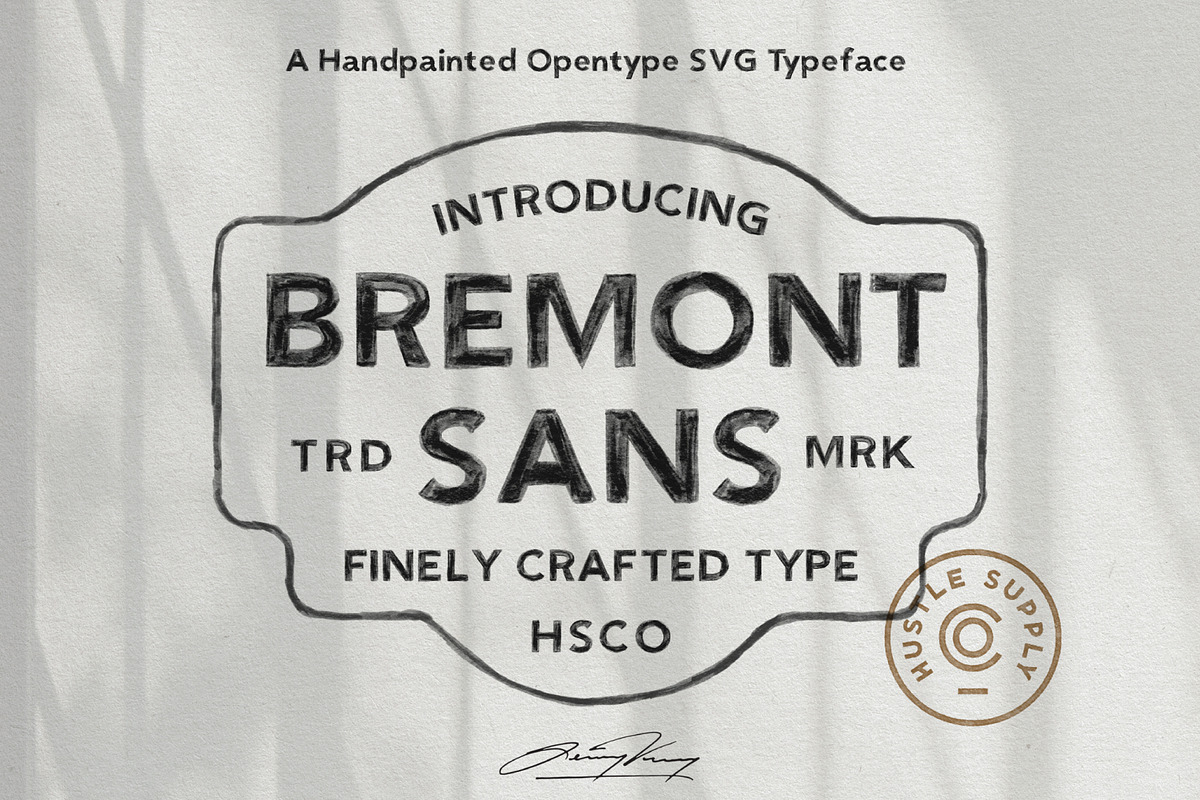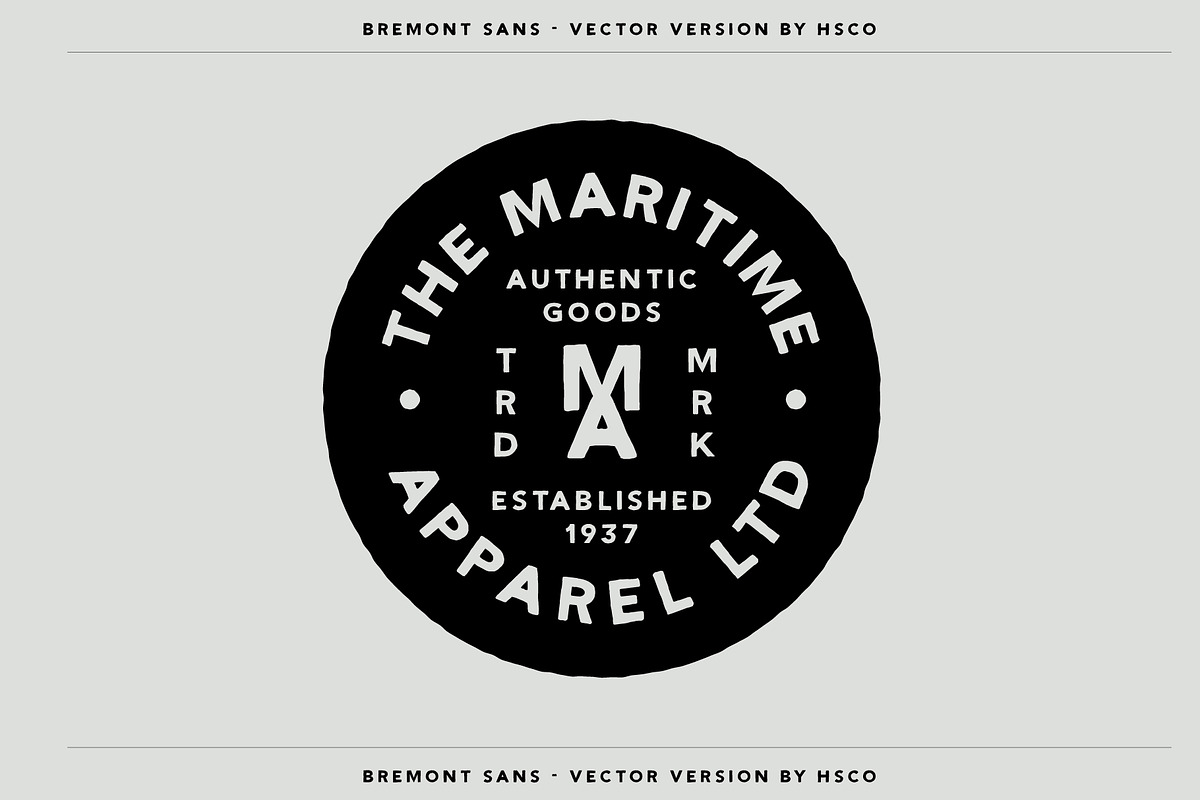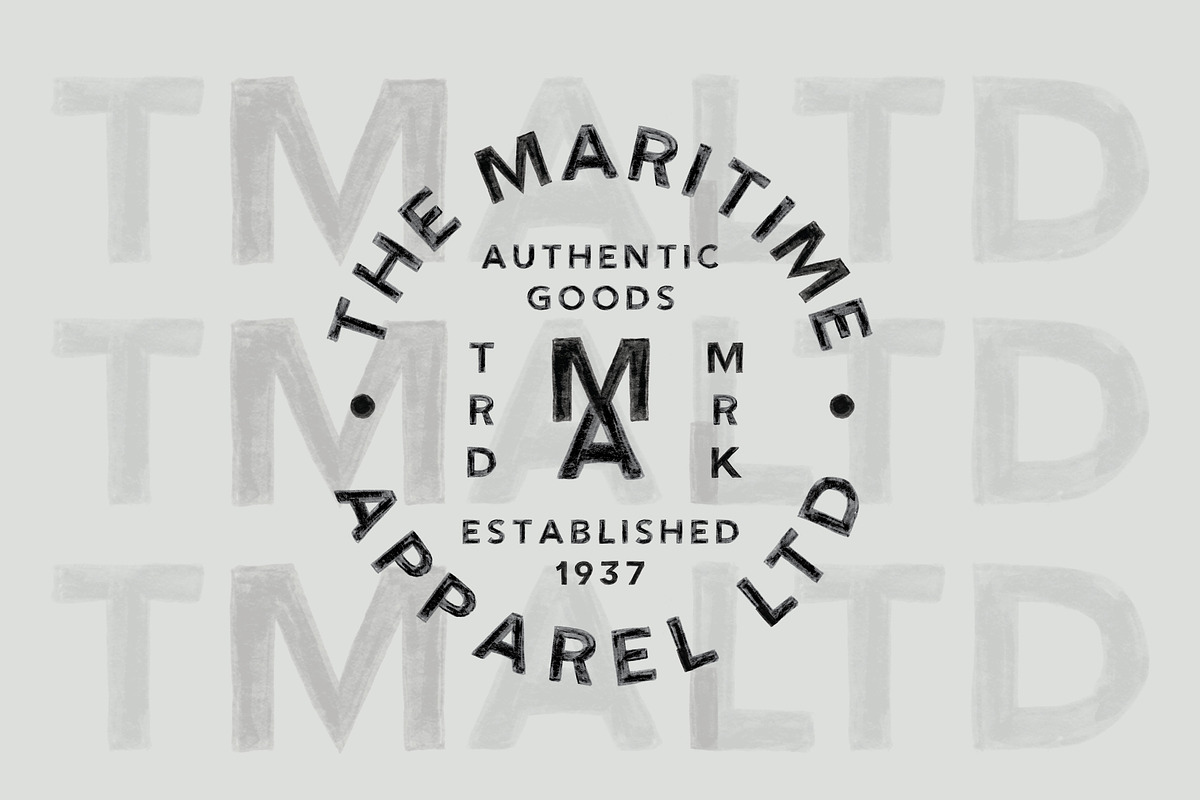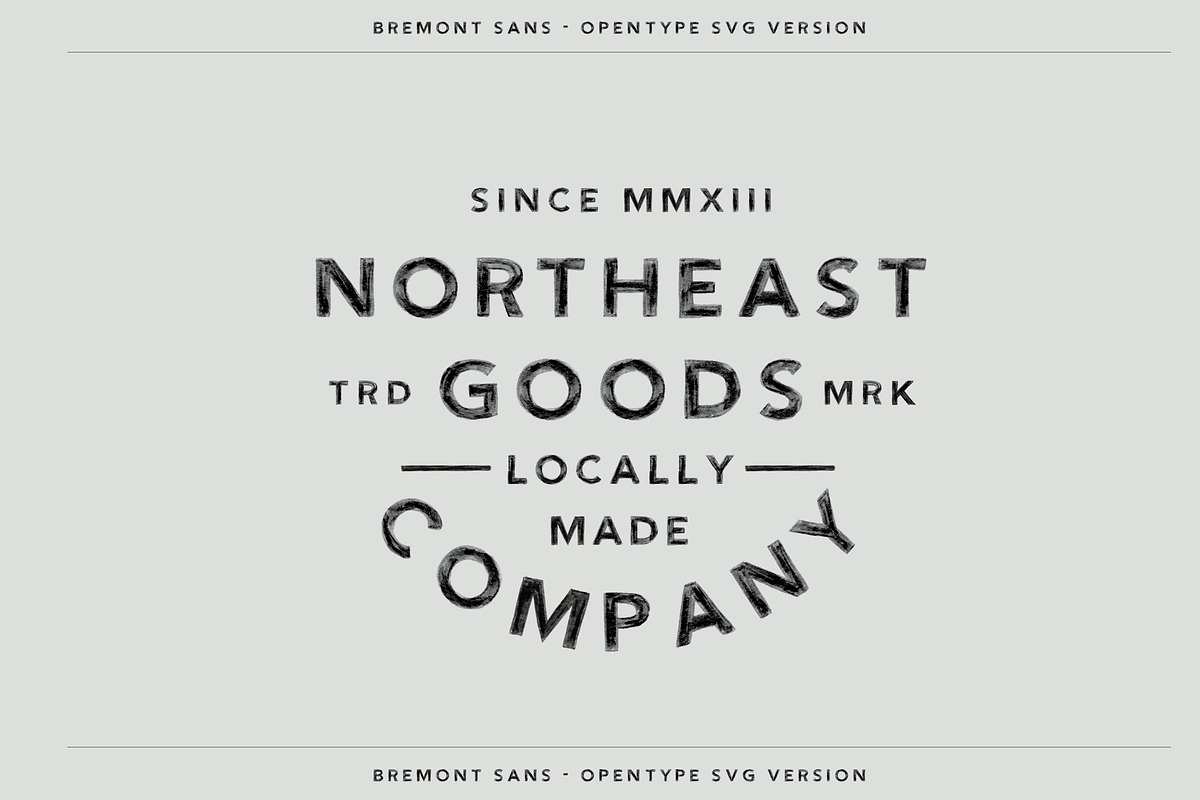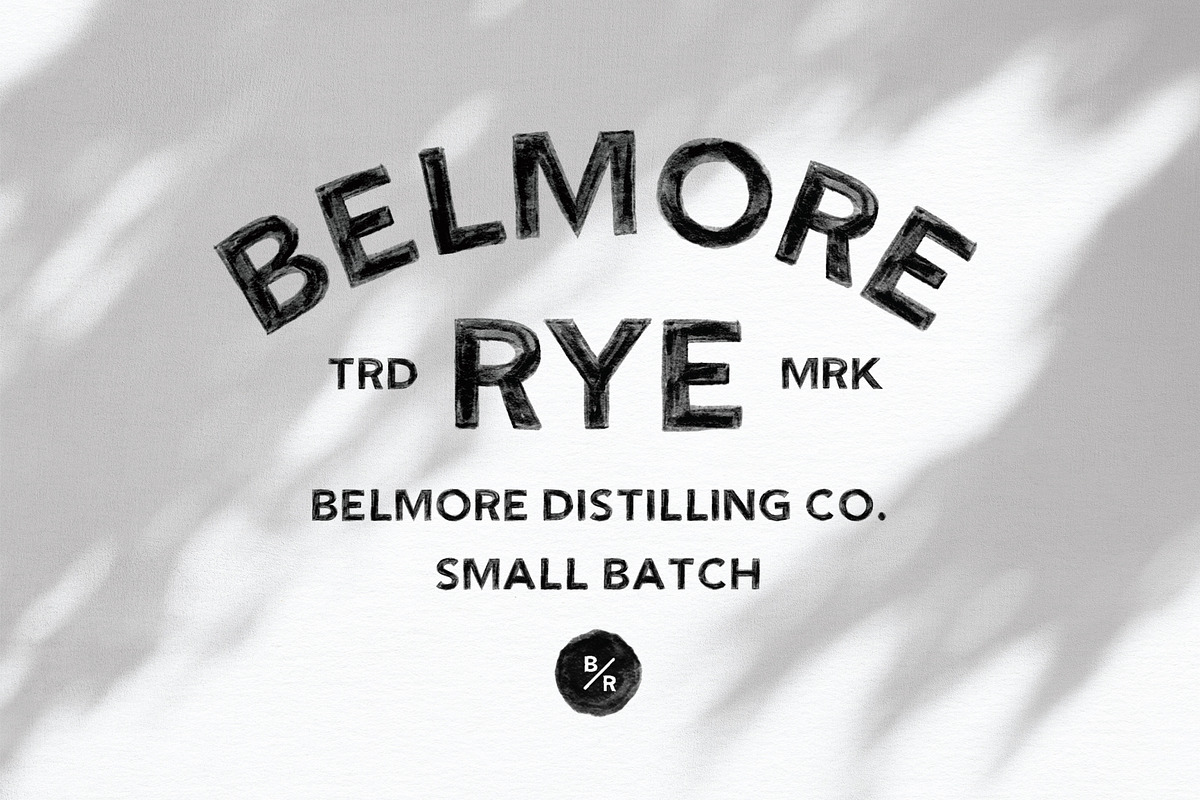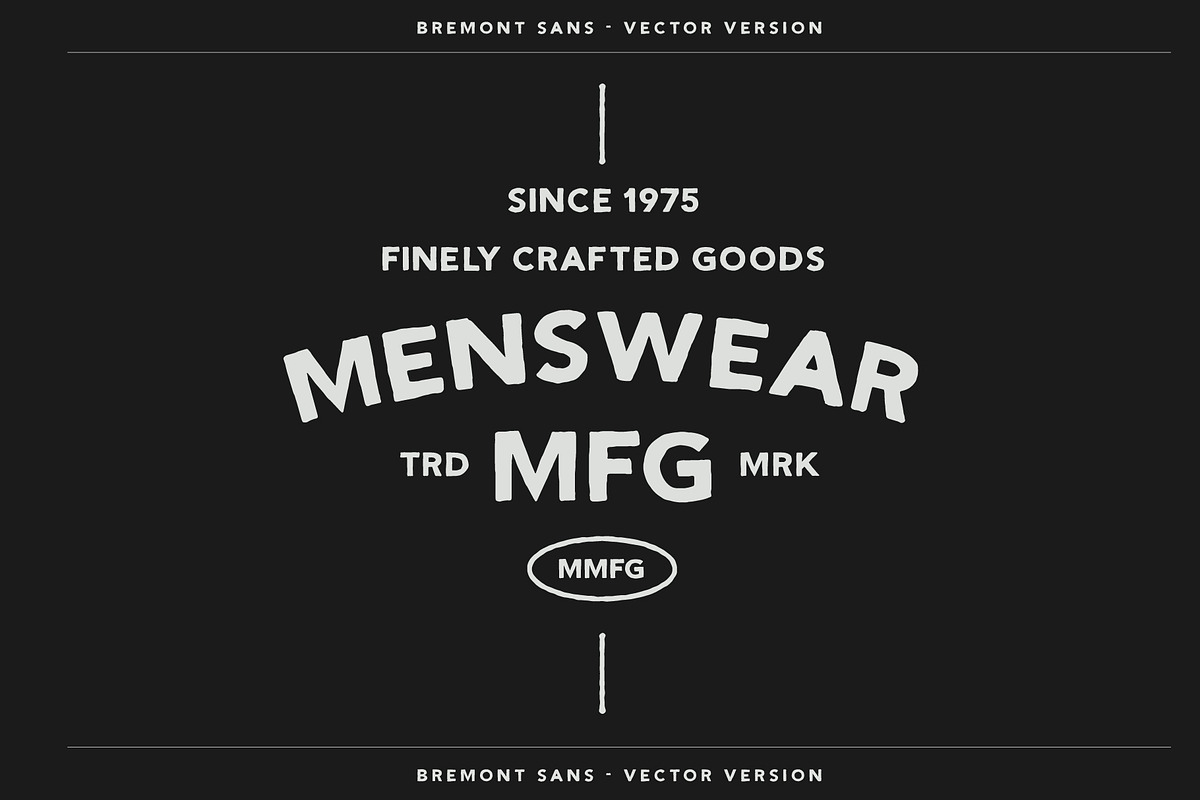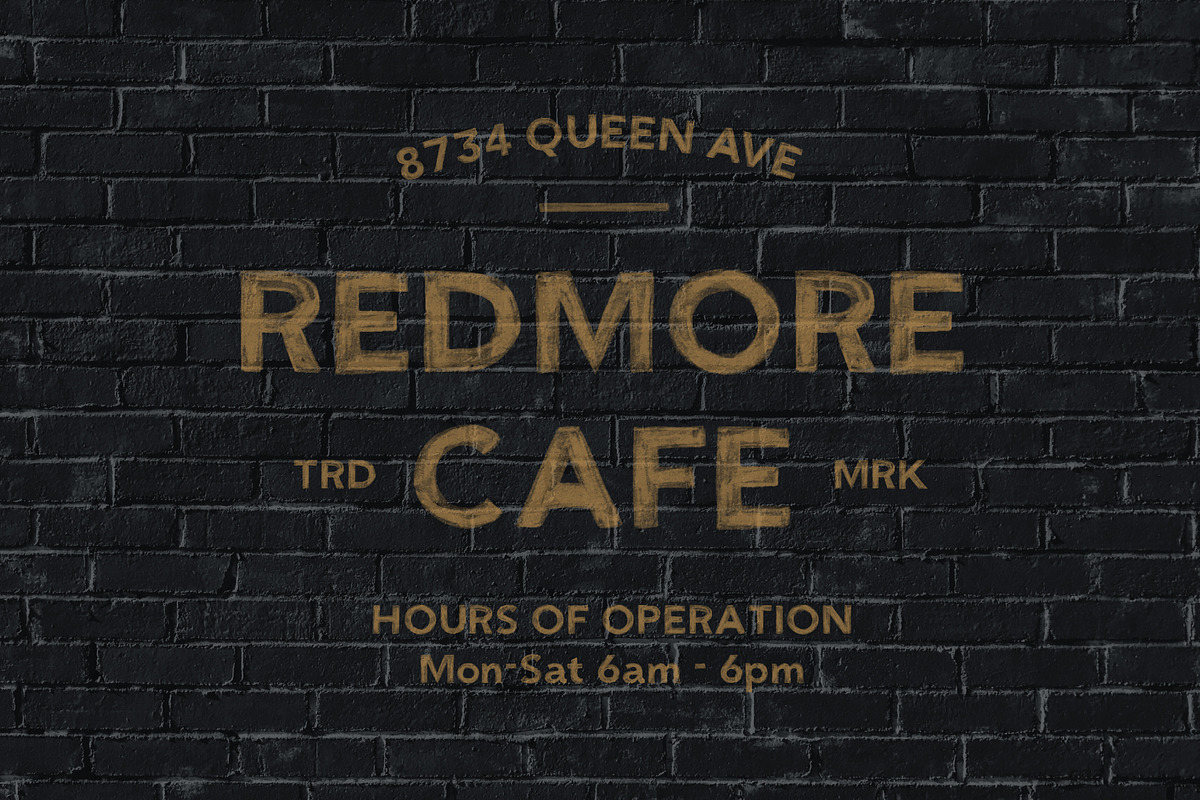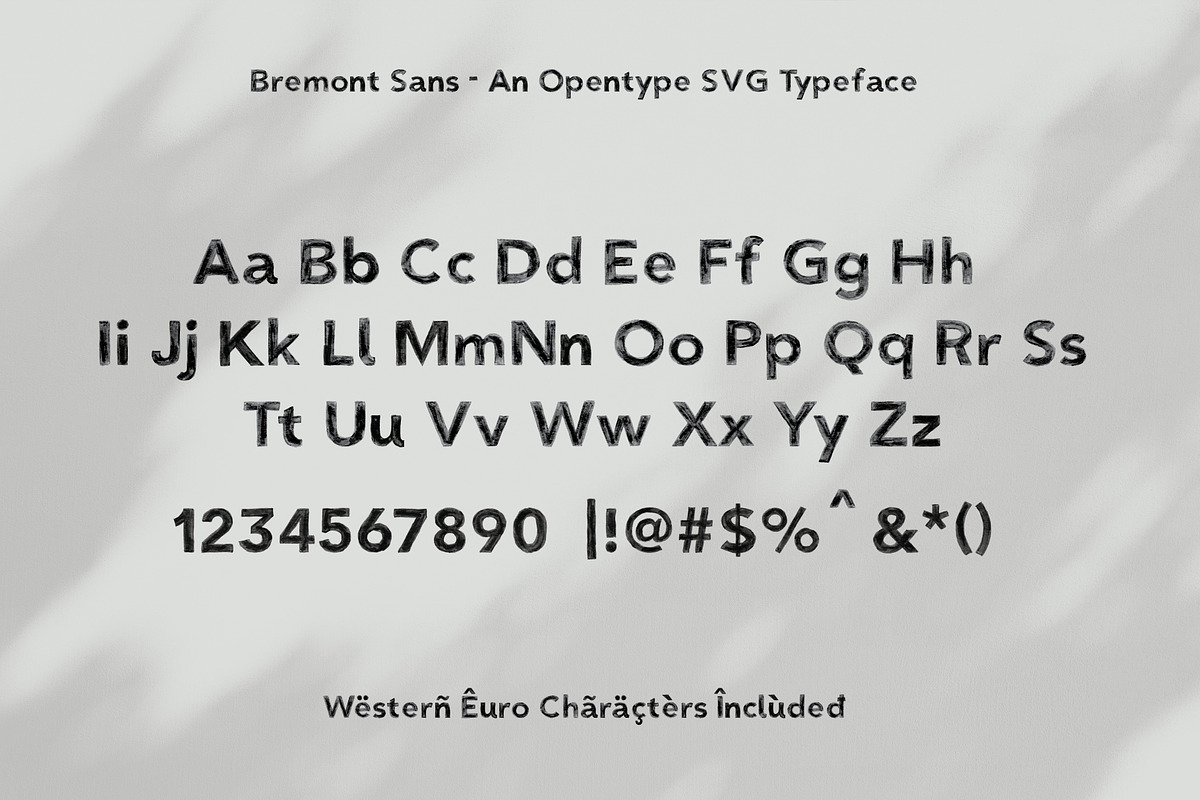
Introducing Bremont Sans
Bremont Sans is a handprinted typeface that includes both Vector & SVG versions. Achieve photorealistic painted letters that will bring your next project to life. Includes Western European Characters. The only web fonts available are for the vectorized version of the typeface as SVG typefaces have potential errors when used on the web. Please rasterize files for this intention.